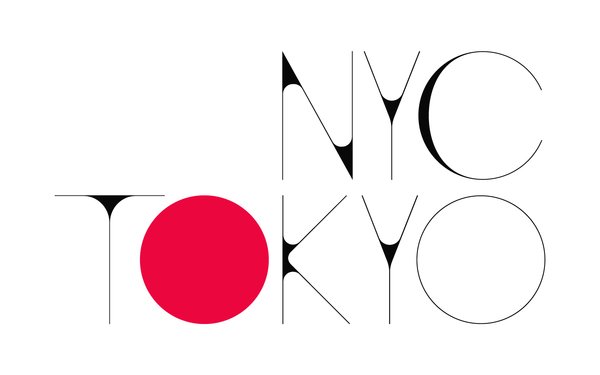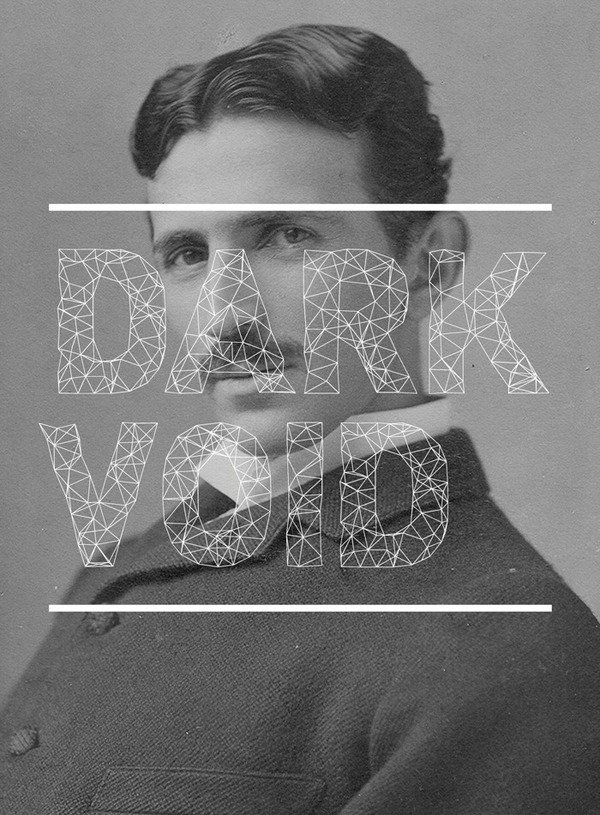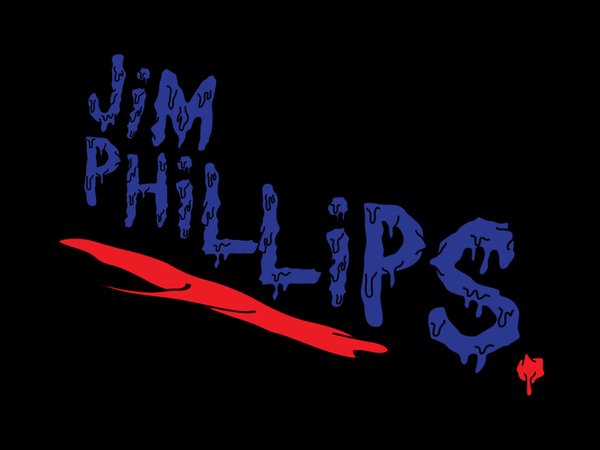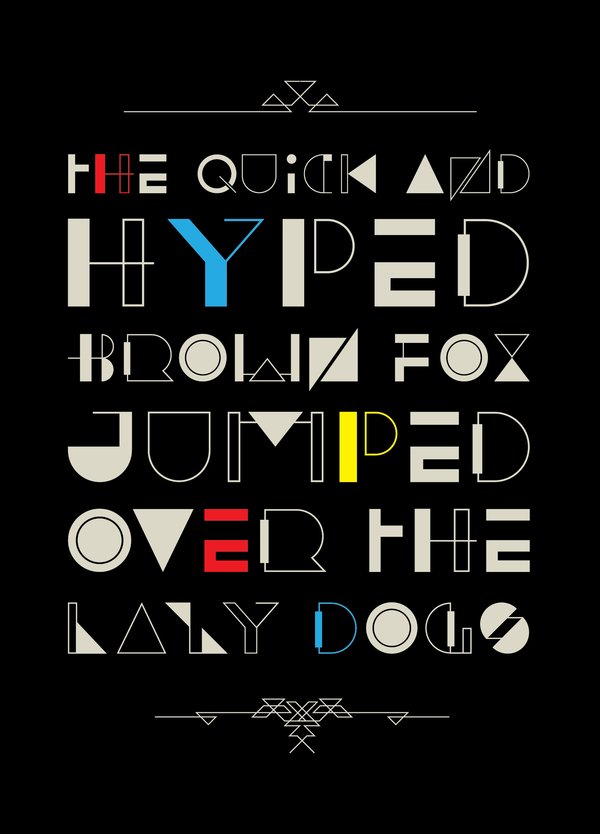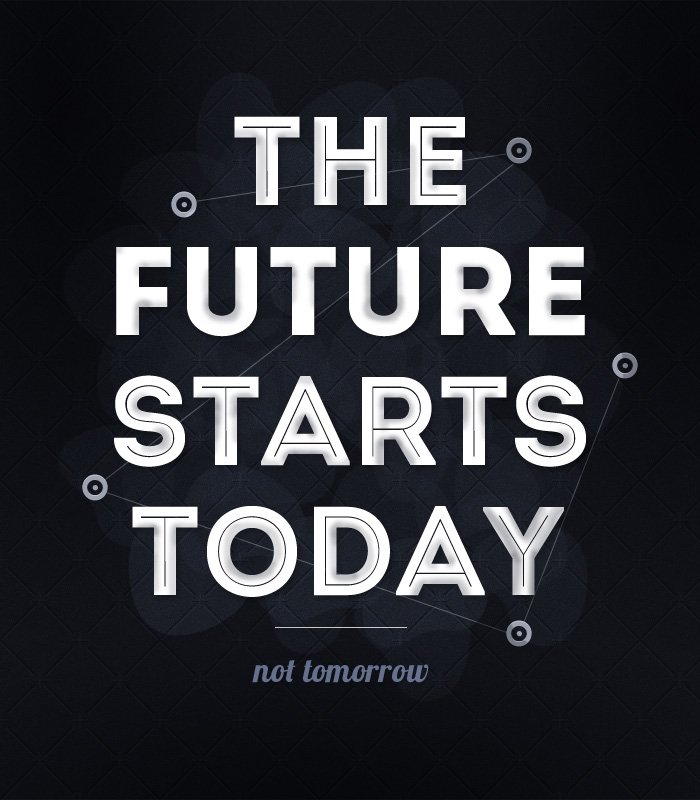
HYPED
Author: Medness
Description: “Originally designed as a typographic poster for an exhibition titled ‘Age of New Generation’, this typeface was further developed into a complete typography set titled HYPED font.”
Intro
Author: Fontfabric
Description: “The basic letters of the Alphabet like “A”, “O” and “H” are built or based on principles of simple geometric forms – triangles, circles and squares.
In contrast to the Futura font which possesses similar styling, the Intro font preserves the characteristic sharpened edges of the “А”, “V” and “W” letters even in it’s bolded form.”
Author: Octavian Belintan
Description: A unique polygonal looking font, that is ideal for headlines, and poster designs.
Accent
Author: Nelson Balaban
Description: Accent is a display type font, that is characterized by thin lines, and for lack of a better word bold curves.
Brainwash
Author: Konrad Bednarski
Description: “Vector display typeface that you certainly can’t use everywhere. It’s a typeface inspired by old-school skateboard art and of course, anything that is connected to zombies.”